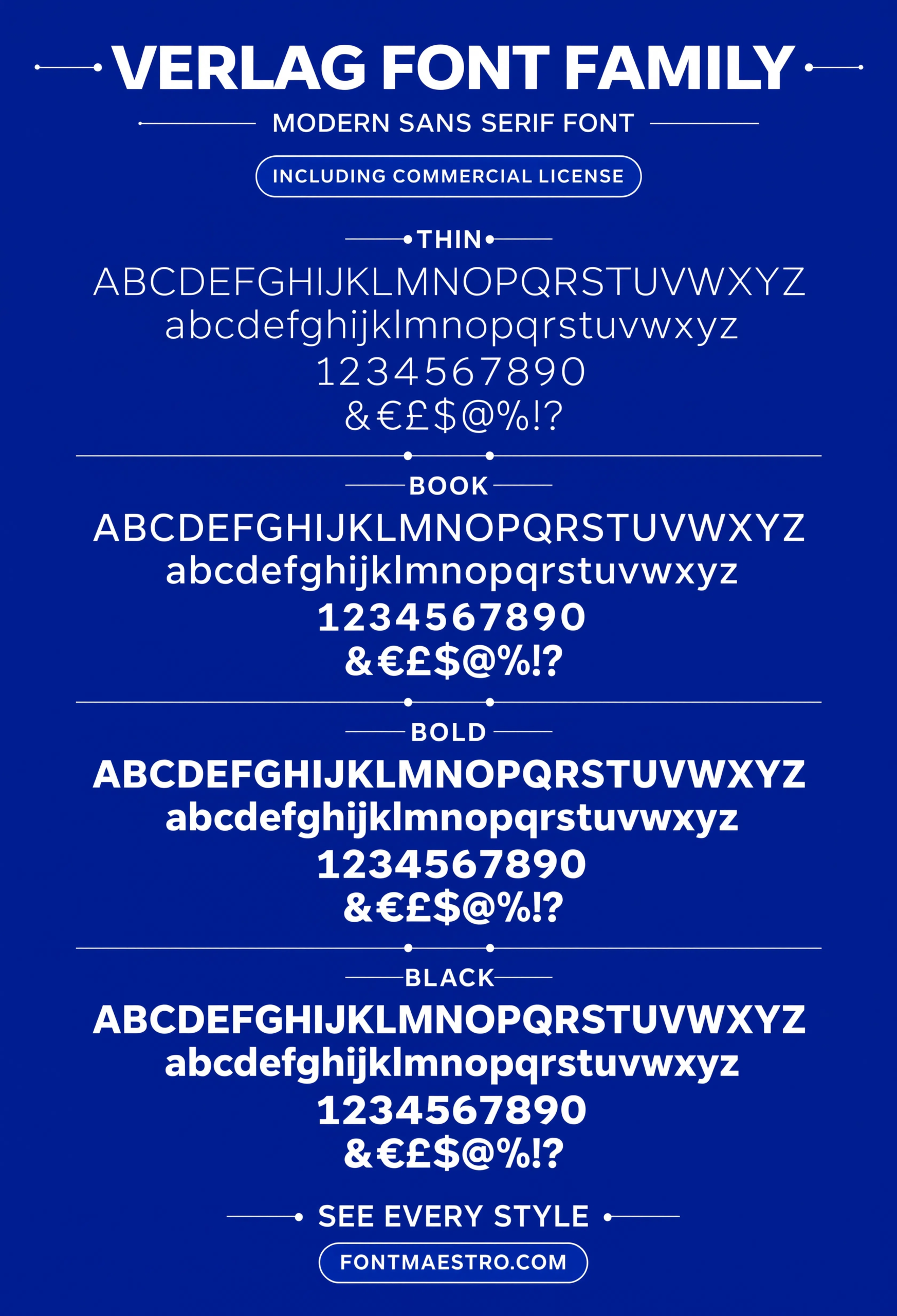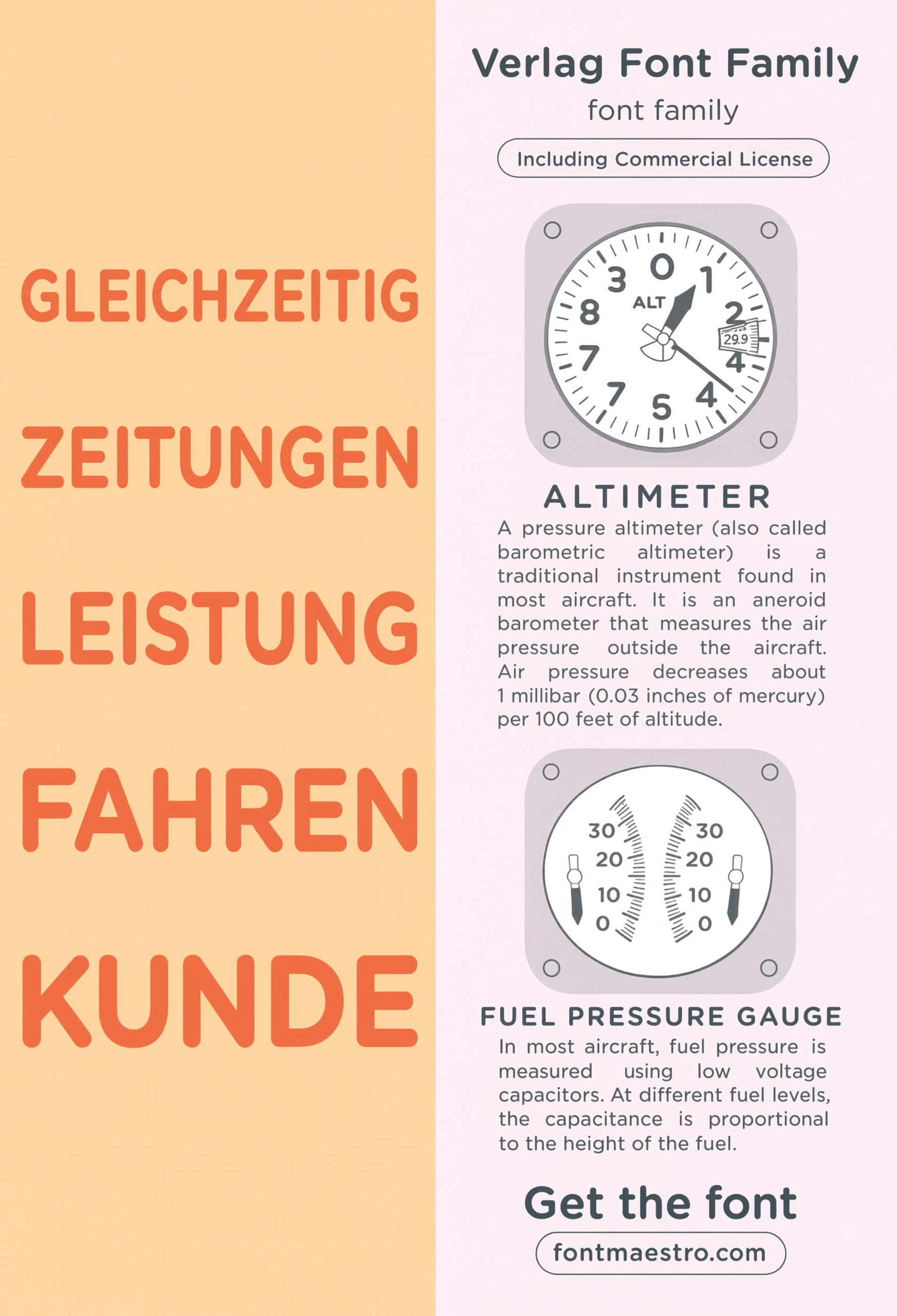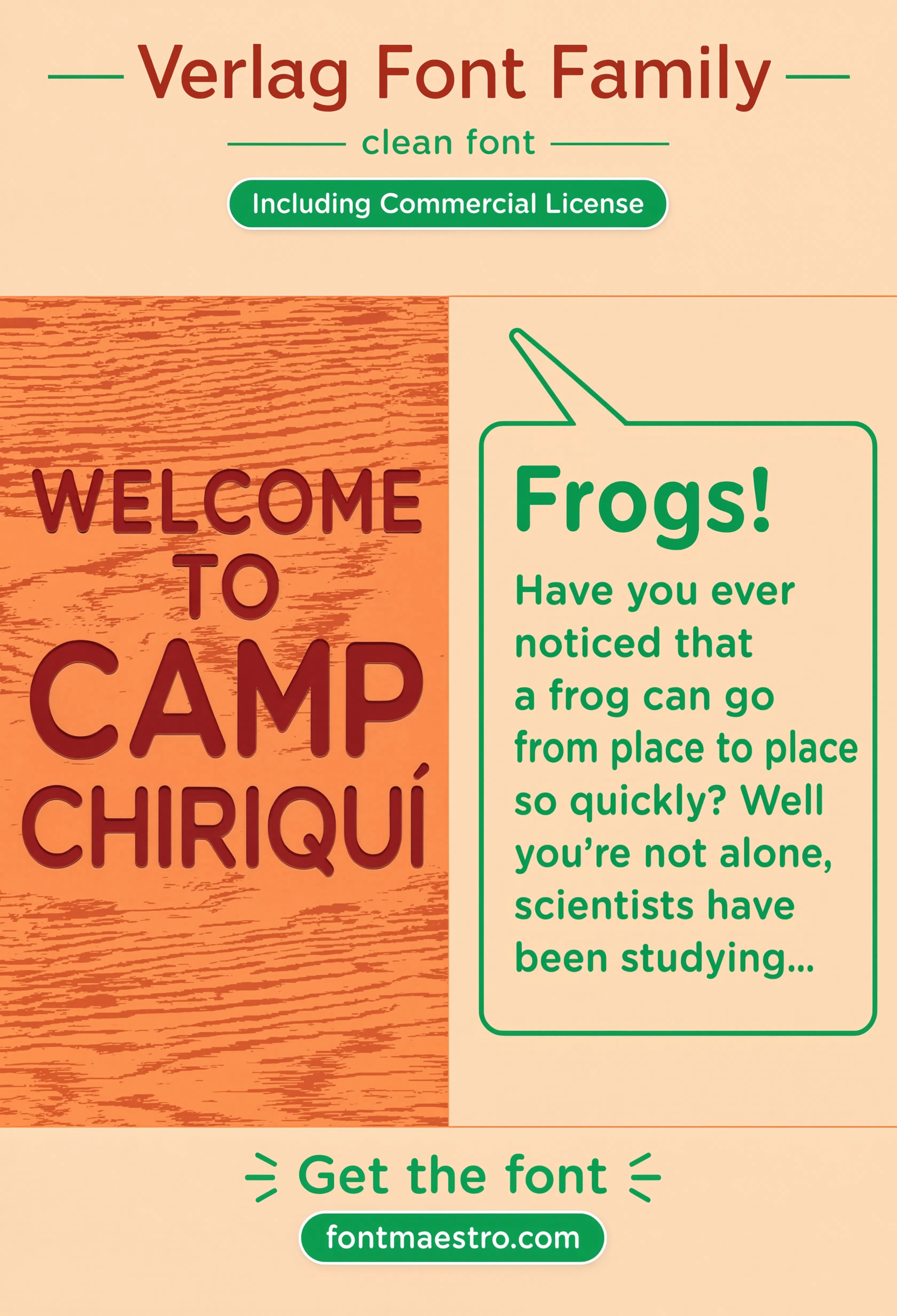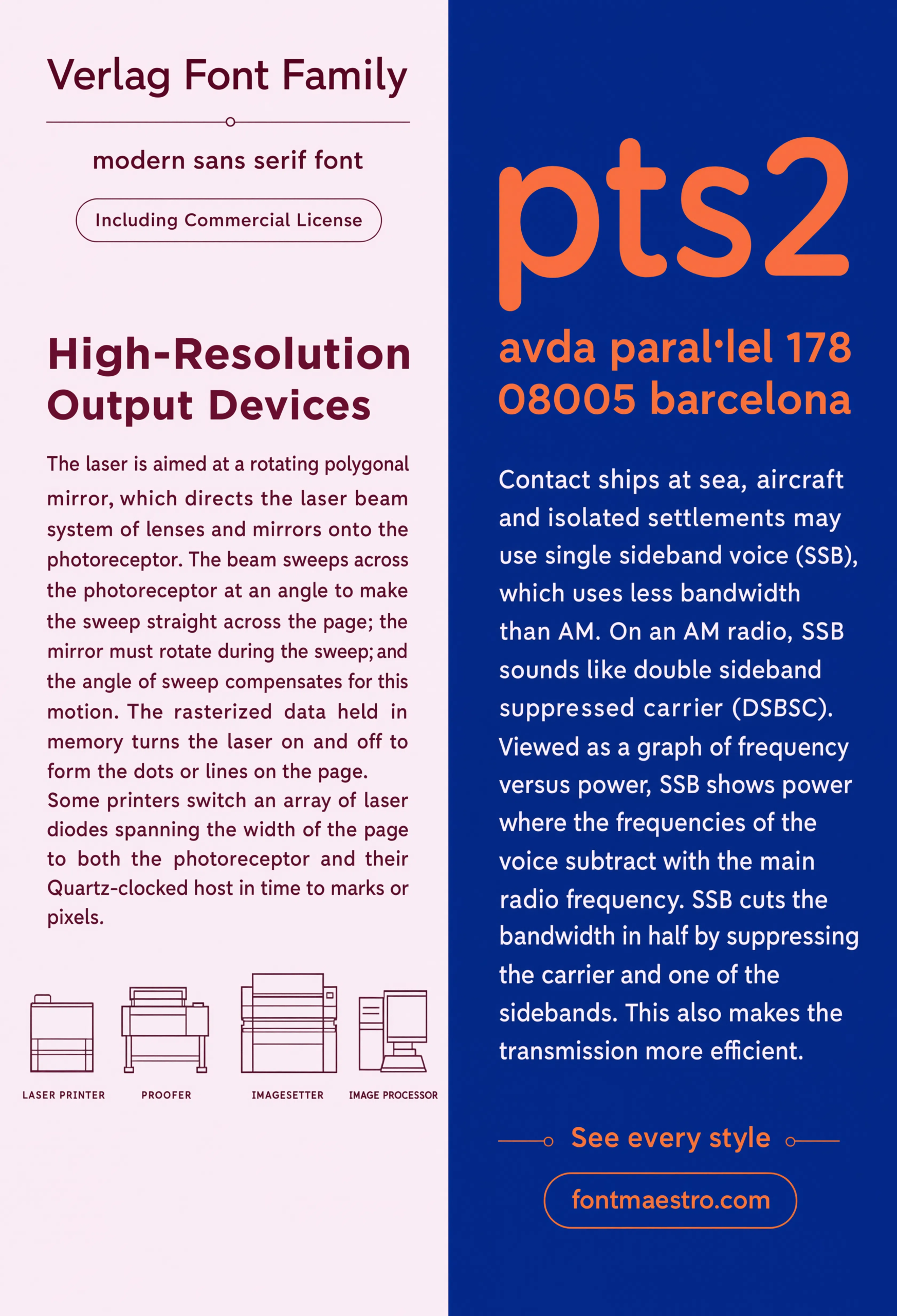
Architectural signage fails in a way most fonts never get tested against — wind, distance, and low light all at once, on a building sign or wayfinding panel that has to read correctly from thirty feet away. Verlag was built for exactly this: it’s the typeface family developed for gallery and museum signage, and it’s still the reference point for what “architecture font” actually means.
Geometric construction is why it works. Verlag’s letterforms are built on consistent circular and straight elements — no stylistic flourish to misread at a glance, no thin strokes that vanish in low light.
Quick answer: Font style for architecture means a clean geometric sans with even stroke weight and strong legibility at a distance — designed for signage, blueprints, and instrument panels, not decorative branding. Verlag fits this because its circular and straight construction holds up consistently from a small technical label to a full building sign.
What Makes a Font “Architectural” Instead of Just Sans-Serif?
Not every sans-serif reads well on a building sign. Architecture-grade type needs even stroke weight across every letter — no thin serifs to fade at distance, no decorative details to blur in peripheral vision. It also needs a wide range of weights, because the same family often has to cover a blueprint title block, a directory sign, and a full building wayfinding system.
Verlag’s instrument panel application shows this range in action — the same geometric skeleton holds up whether it’s labeling a dial at 8pt or a building name at 200pt. That consistency across scale is the actual technical requirement, not just a visual preference.
Blueprint, Signage, or Branding — Where This Style Fits
- Check the specimen sheet first — a full character set reveals whether the counters stay open and legible at the weight you plan to use.
- Test against a blueprint or technical layout — numerals and small labels need to hold up at sizes far smaller than a headline.
- Confirm the weight ladder — light through bold in the same geometric skeleton lets one family cover signage, print, and branding.
- Push it to poster or display scale — a genuinely architectural sans should hold its precision at both tiny and huge sizes.
Full character set with consistent stroke width throughout. No thick-thin contrast to lose at a distance — every letter reads at the same visual weight.
Small-scale technical labeling test. Holds up at 8-10pt without the counters closing up — the failure point for most geometric sans fonts at this size.
A large-format poster application shows the family pushed to display scale, testing whether the geometric precision holds up at a much bigger size.
A magazine-style spread pairs the geometric sans against running body copy, testing readability beyond just headline and signage use.
What Happens If You Use the Wrong Font for Signage?
A decorative or thin-stroke font on exterior signage disappears in low light or from a distance — the same detail that reads as elegant on a printed invitation becomes illegible on a wayfinding sign thirty feet away. Test any candidate font at the actual viewing distance and lighting condition before committing to fabrication, since a screen preview at 100% zoom tells you almost nothing about how it performs in the field.
Can the Same Font Cover Both a Blueprint and a Building Sign?
Yes, if the family has a full weight range — light and regular weights suit technical labeling and title blocks, while medium and bold weights carry signage and wayfinding applications. The editorial and poster examples above show how far that same geometric skeleton stretches once it leaves the blueprint and enters branding and display work.
Frequently Asked Questions
What font style works best for building signage?
A clean geometric sans-serif with even stroke weight and no decorative detail — legibility at distance and in low light matters more than visual flair.
Key Takeaways
- Architecture-grade fonts need even stroke weight and strong legibility at a distance, not decorative flourish.
- A full weight range lets one family cover blueprints, signage, and branding consistently.